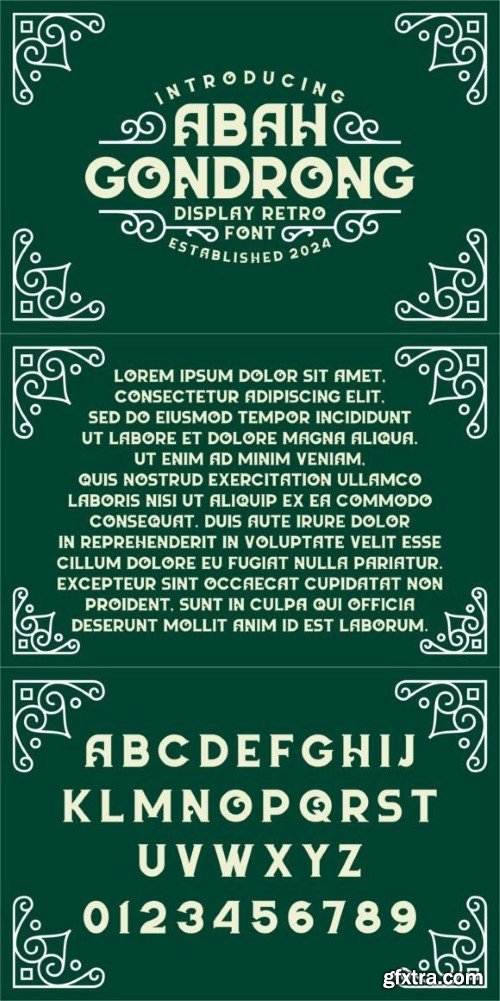
奥巴·古唐农字体
Abah Gondrong is a cool retro display font that brings a touch of vintage flair to your designs. With bold, distinctive characters, this font adds a nostalgic vibe to any project. Whether you’re creating posters, logos, or headlines, Abah Gondrong captures the essence of retro style, making your text stand out with a hint of old-school charm.